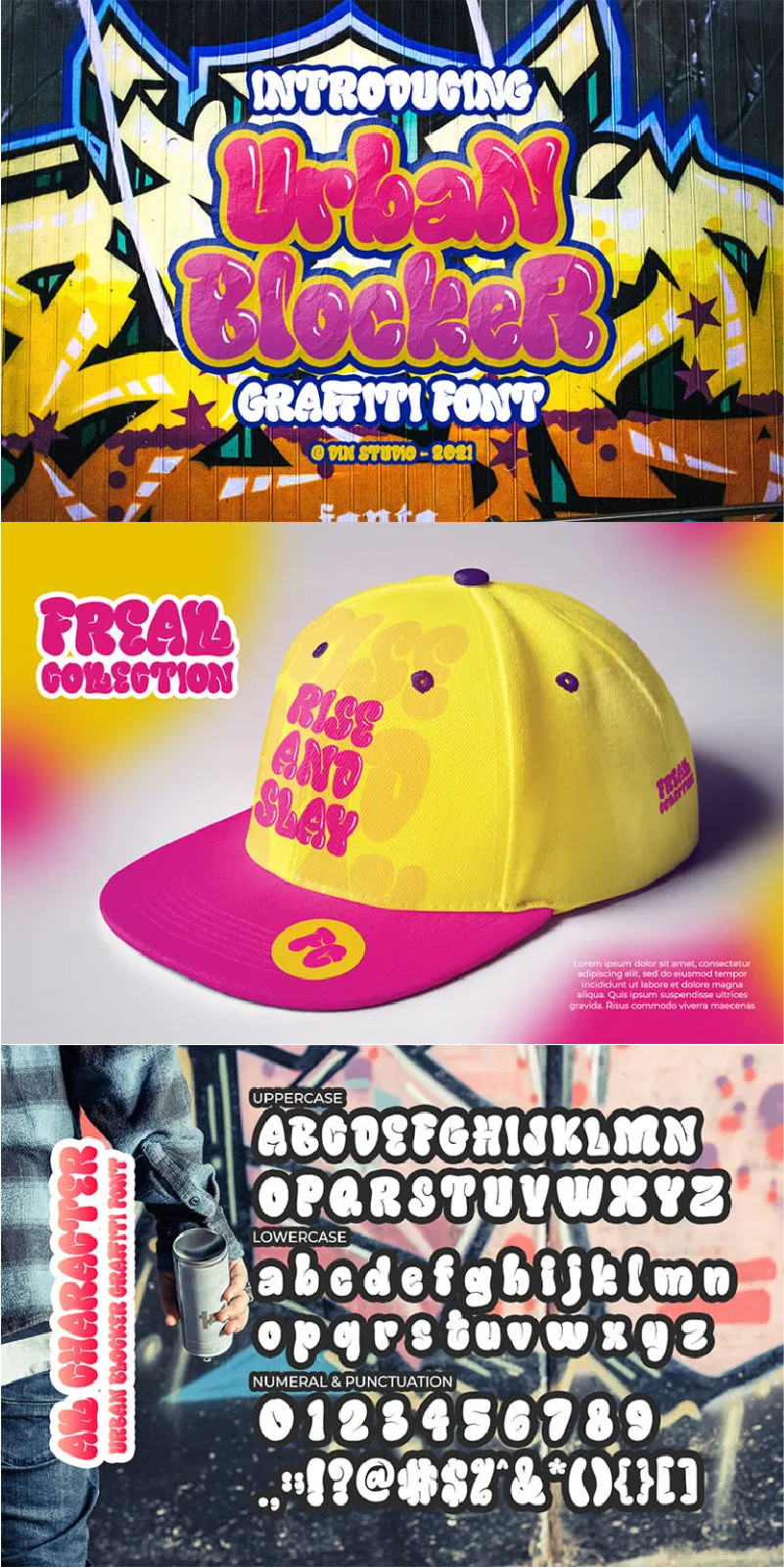
Urban Blocker Font
About Urban Blocker
Urban Blocker – A Graffiti Font.
This bubble graffiti font can be used for a host of different content needs and projects. An excellent choice to add the right amount of street vibe and playfulness. Create gorgeous printed quotes, standout packaging, or beautiful t-shirts! You can even use it to create amazing headings, logos, menus, and social media graphics.
The font includes multilingual options to make your branding reach a global audience. See the previews above to get some inspiration on how you can use them.
-Standart Ligatures
Afrikaans, Albanian, Asu, Basque, Bemba, Bena, Breton, Catalan, Chiga, Colognian, Cornish, Croatian, Czech, Danish, Dutch, Embu, English, Esperanto, Estonian, Faroese, Filipino, Finnish, French, Friulian, Galician, Ganda, German, Gusii, Hungarian, Inari Sami, Indonesian, Irish, Italian, Jola-Fonyi, Kabuverdianu, Kalaallisut, Kalenjin, Kamba, Kikuyu, Kinyarwanda, Latvian, Lithuanian, Lower Sorbian, Luo, Luxembourgish, Luyia, Machame, Makhuwa-Meetto, Makonde, Malagasy, Maltese, Manx, Meru, Morisyen, Northern Sami, North Ndebele, Norwegian Bokmål, Norwegian Nynorsk, Nyankole, Oromo, Polish, Portuguese, Quechua, Romansh, Rombo, Rundi, Rwa, Samburu, Sango, Sangu, Scottish Gaelic, Sena, Serbian, Shambala, Shona, Slovak, Soga, Somali, Spanish, Swahili, Swedish, Swiss German, Taita, Teso, Turkish, Upper Sorbian, Uzbek (Latin), Volapük, Vunjo, Walser, Zulu